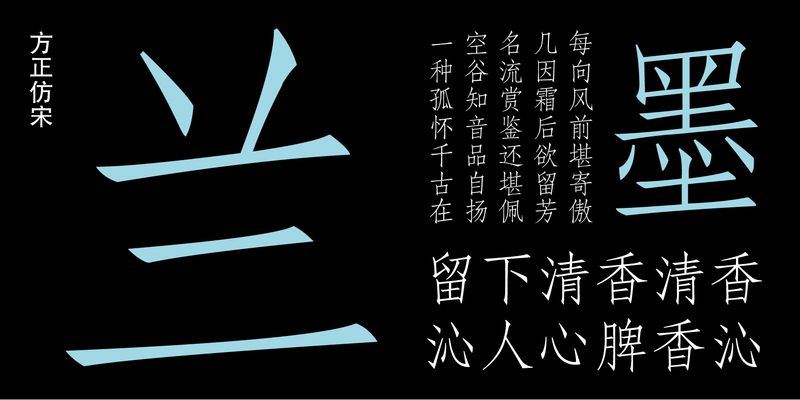
FangSongTi was created at the beginning of the 20th century by the producers imitating the thin and condensed characters found in Song Dynasty books. Fāng Zhèng Fǎng Sòng originated from the manuscript in the woodblock printing era. The font body is slightly narrow, the strokes are thin and powerful, the horizontal and vertical strokes are equally thick. The starting movement of Fāng Zhèng Fǎng Sòng has oblique edges and corners, and its break strokes have noticeable angular features, making its overall shape towering and more powerful. According to its clear and recognizable characteristics, it has long been used in books as quotation and reference font, and also been used in engineering drawing text.